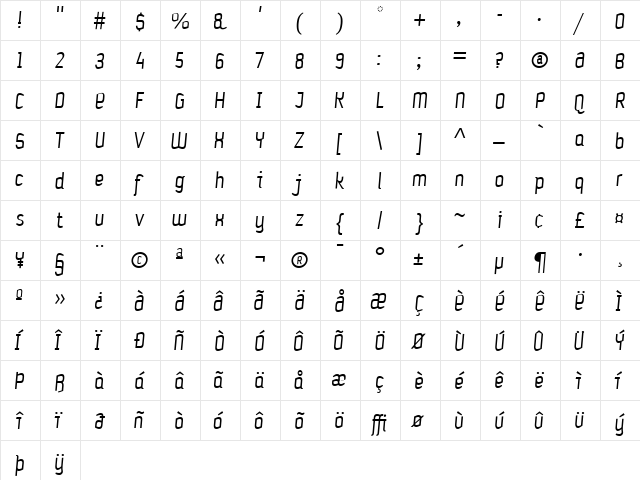
Petrol Light Italic Font Preview
Petrol Light Italic
Design Context for Petrol Typeface
Petrol is a composed and adaptable typeface that performs quietly and consistently across a wide range of design contexts. The dynamic lean of this cut emphasises speed and emphasis in any layout. The delicate stroke weight brings airiness and refinement to layouts.